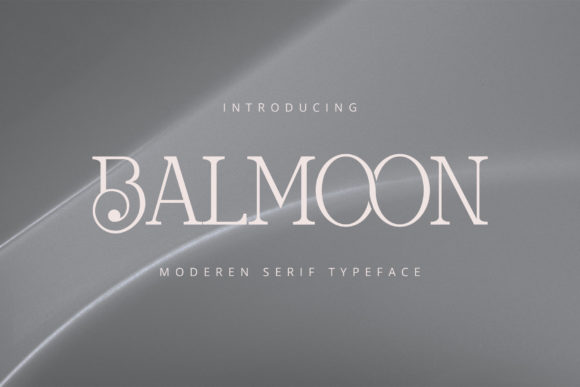
Get ready to unleash the power of typography with Ballmoon Font, the ultimate serif font that will transform your creative visions into captivating masterpieces. Immerse yourself in the world of hip and trendy design as Ballmoon Font takes center stage, elevating your projects with its tall, thin letters and distinct serif style. With Ballmoon Font at your fingertips, you'll discover a new realm of possibilities, where words dance with grace and elegance, leaving an unforgettable impression on your audience.
Explore the boundless creativity that awaits you with Ballmoon Font. Its PUA encoding opens up a universe of glyphs and swashes, granting you effortless access to a treasure trove of typographic artistry. Unleash your imagination and let Ballmoon Font guide you to new heights of design excellence.
Step into a world where sophistication meets playfulness, where the ordinary transforms into the extraordinary. Ballmoon Font is not just a font; it's an artistic gateway that invites you to push boundaries and redefine the limits of design. Its tall and slender letterforms lend a touch of elegance to any project, while its distinct serif details add a captivating charm that sets it apart from the rest.
With Ballmoon Font as your creative companion, you'll find yourself captivated by its ability to transform ordinary text into mesmerizing works of art. It's the perfect font for crafting logos that demand attention, social media posts that ignite engagement, and marketing materials that leave a lasting impression.
Don't settle for ordinary fonts that blend into the background. Embrace the allure of Ballmoon Font and embark on a typographic journey that will redefine your creative identity. Let your words take flight with Ballmoon Font, where every letter tells a story, every sentence paints a picture, and every design captures the essence of your unique style.